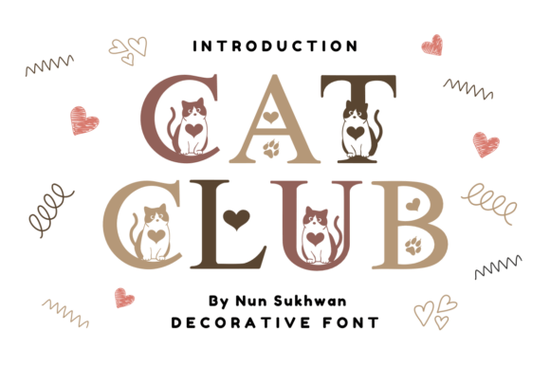
If you’ve ever wanted your designs to feel a little more personal, a little more playful, or just plain cozy, Cat Club Font might be exactly what you’re looking for. It’s a handwritten-style typeface that feels like it was scribbled with love perfect for greeting cards, journal pages, or even custom mugs and shirts. Whether you’re running a small print-on-demand shop or just making birthday cards for friends, this font adds charm without trying too hard.
What kinds of projects work best with Cat Club Font?
Because it’s got that casual, friendly vibe, Cat Club shines in projects where warmth matters more than formality. Think:
- Personal journals or planners the soft curves make daily notes feel inviting.
- Custom greeting cards birthdays, thank-yous, or “thinking of you” messages feel more heartfelt.
- Social media graphics especially for pet brands, lifestyle bloggers, or craft-focused accounts.
- Print-on-demand products tote bags, mugs, T-shirts with cute quotes or cat-themed puns.
- Stationery sets matching notepads, envelopes, stickers, or gift tags.
It’s also surprisingly versatile. You can pair it with clean sans-serifs for contrast, or layer it over textured backgrounds for that handmade aesthetic. If you liked the whimsical energy of Sun and Moon Magic, you’ll probably enjoy how Cat Club brings a similar coziness but with more everyday usability.
Is this font beginner-friendly?
Absolutely. There’s no steep learning curve here. The letters are clear, well-spaced, and don’t rely on overly complex ligatures or stylistic alternates unless you want them. Most design tools (Canva, Photoshop, Illustrator, Affinity, etc.) will let you drop it in and start typing right away.
One thing to keep in mind: because it’s handwritten, avoid using it for long paragraphs or tiny text sizes. It works best as a display font for headlines, short quotes, labels, or decorative accents. If you need something more structured for body text, consider pairing it with a simple sans-serif like Arial or Helvetica.
How does it compare to other decorative fonts?
Unlike some decorative fonts that lean heavily into fantasy or ornate details, Cat Club keeps things grounded. It doesn’t scream for attention it invites you in. For example, if you’ve used Back to School Font for kids’ projects or classroom decor, you know how fun and bouncy those letters can be. Cat Club is more relaxed, like a lazy Sunday afternoon with a purring cat beside you.
It’s also more flexible across audiences. While some fonts feel “too young” or “too girly,” Cat Club has a neutral charm that works for all ages and genders. Pet lovers, stationery addicts, indie shop owners they’ll all find something to love here.
Any tips for getting the most out of this font?
Here are a few quick ideas to help your projects stand out:
- Play with color. Try soft pastels, warm neutrals, or even black on kraft paper backgrounds.
- Add texture. A subtle grain or watercolor wash underneath makes it feel even more handcrafted.
- Pair with icons. Simple line drawings of cats, plants, or coffee cups complement the font’s personality.
- Use sparingly. One headline or quote per design is often enough let the font breathe.
You can also experiment with spacing. Slightly increasing the letter-spacing (tracking) can give your text more air and elegance, while tightening it up creates a cozier, more intimate feel.
Where should I start if I’m new to fonts like this?
Pick one small project. Maybe a “Good Morning” mug design, or a set of printable gift tags for the holidays. Don’t overthink it. The beauty of Cat Club is that it doesn’t demand perfection it thrives on personality.